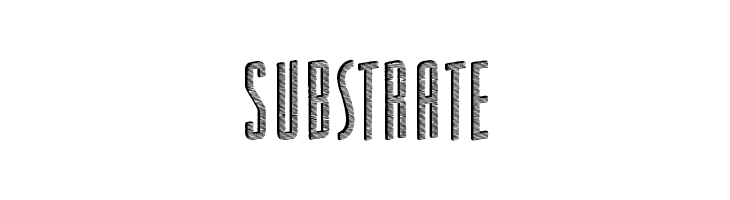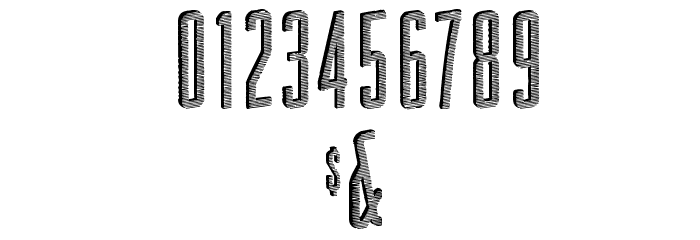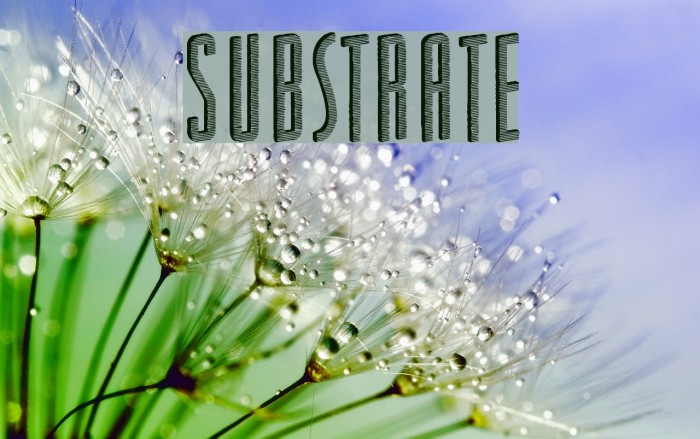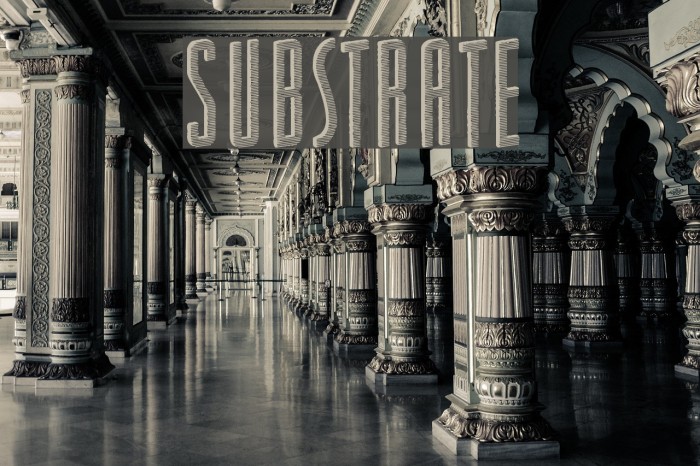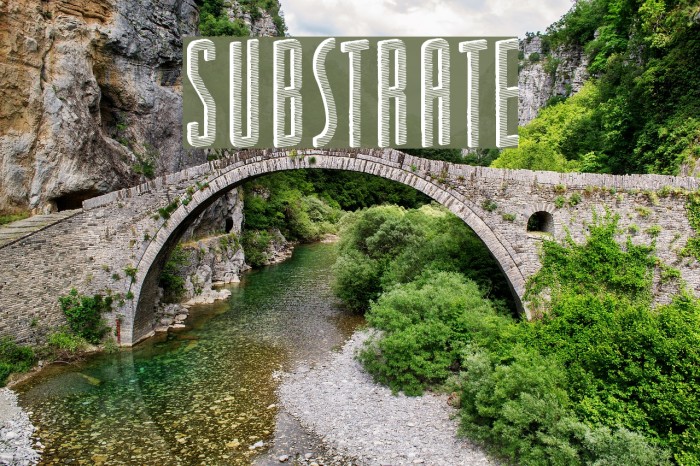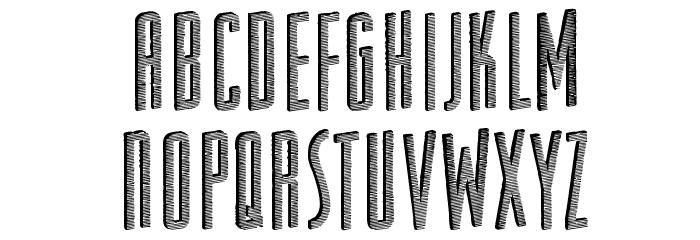
Substrate Font
Substrate Description
This font features a distinctive, textured design with a hand-drawn appearance. The characters are tall and narrow, with a consistent vertical line pattern running through each letter, giving it a unique, sketch-like quality. The uppercase and lowercase letters maintain a uniform style, with the numbers and special characters following suit. This font exudes a vintage, artisanal feel, making it ideal for projects that require a handcrafted or rustic touch. The overall design is both eye-catching and versatile, suitable for a variety of creative applications.
A textured, hand-drawn font with a vintage, artisanal style from Uncategorized fonts.
- Proposed Projects: Ideal for branding, packaging, posters, and invitations that require a handcrafted or rustic aesthetic.
- Overall Style: Vintage